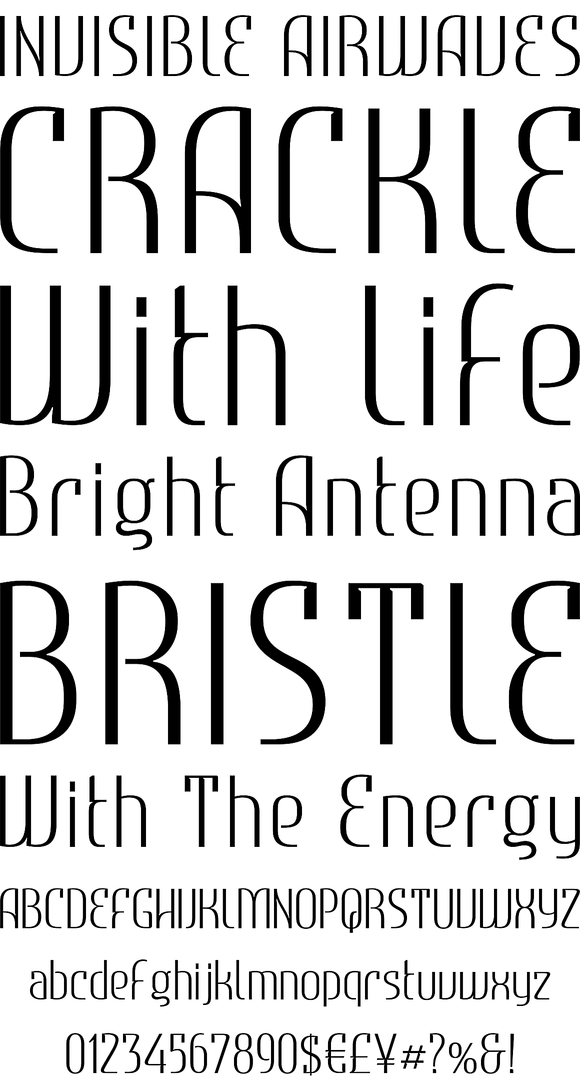
Estimo is an unusual, yet elegant type family of three styles in five weights Originally developed as upper-case-only family, Estimo was inspired by the works of Bulgarian type and graphic designers in 1980’s It is characterized by its lack of diagonal strokes wherever possible , thus experimenting with letterforms without losing legibility This unique typeface is suitable for all kinds of creative and editorial works, creating impact for headlines of all sizes, as well as readability for text blocks.